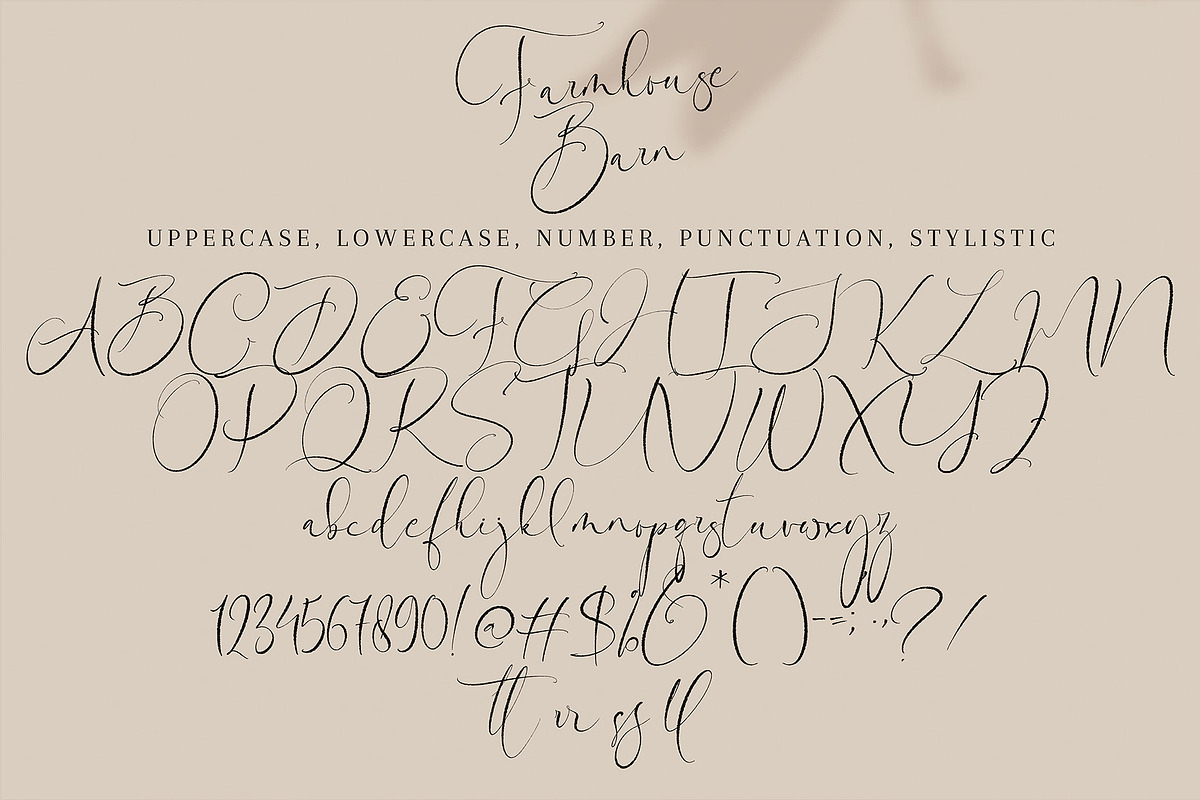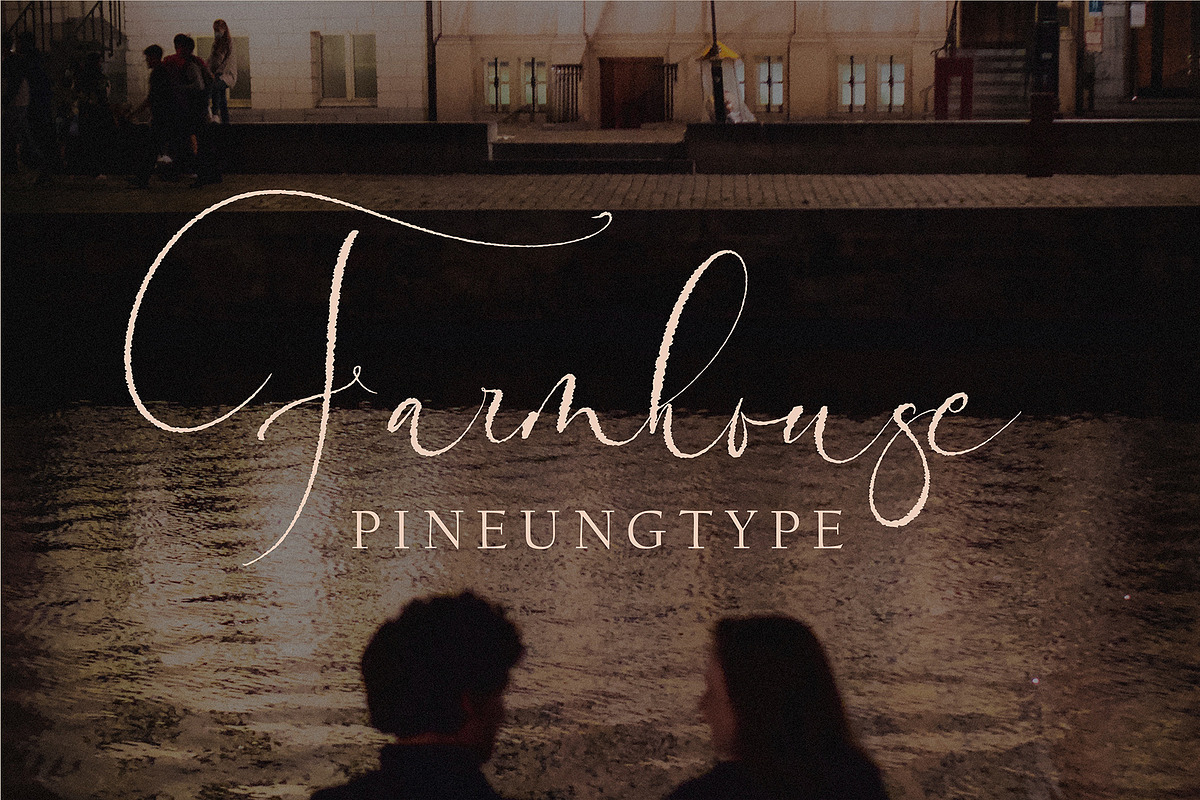
Farmhouse Barn
Farmhousebarn with new style, this font will perfect for many different project ex: quotes, logo, blog header, poster, banding, letter, invitation, stationery, etc...